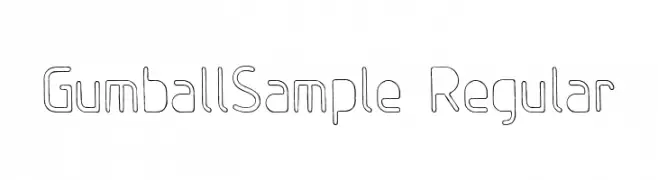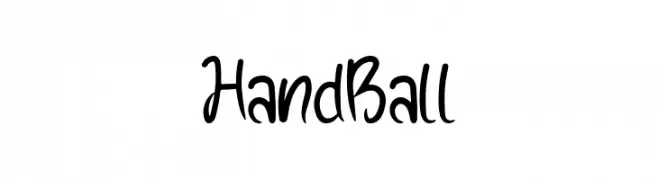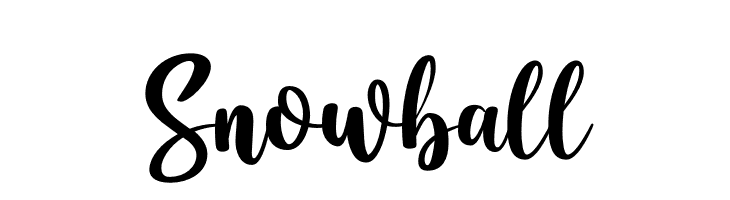
An elegant script font with intricate swirls and flowing lines.
A playful, outlined font with a modern and approachable design.
A playful, snow-themed font with bold, outlined characters.
A bold, rounded, and playful font with a cartoonish style.
A lively, bold script font with a handwritten, fluid style.
A bold, rugged font with a hand-painted, brush-stroke style.
A playful, bold font with rounded, bubble-like characters.
A lively and expressive handwritten font with playful flourishes.
A playful, handwritten font with bold, flowing curves.
A dynamic script font with elegant, flowing strokes and a handwritten feel.